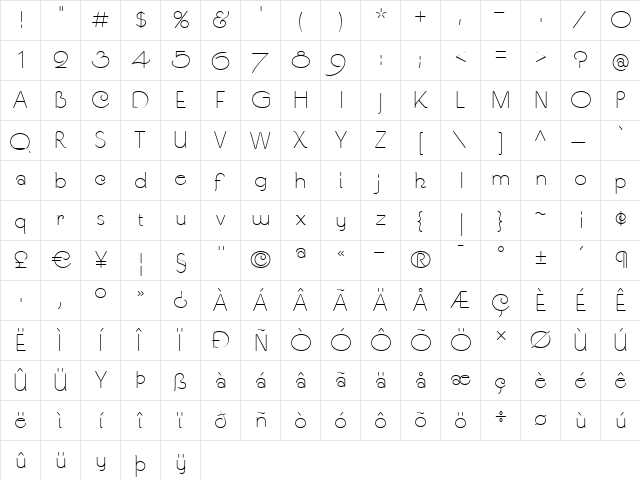
P22ArtDeco Light Font Preview
P22ArtDeco Light
P22ArtDeco Light Font Details
| Foundry | P type foundry, Inc |
Design Context for P22ArtDeco Typeface
P22ArtDeco offers clean, dependable letterforms without strong stylistic allegiance, making it a practical choice for designers who need flexibility. The delicate stroke weight brings airiness and refinement to layouts.